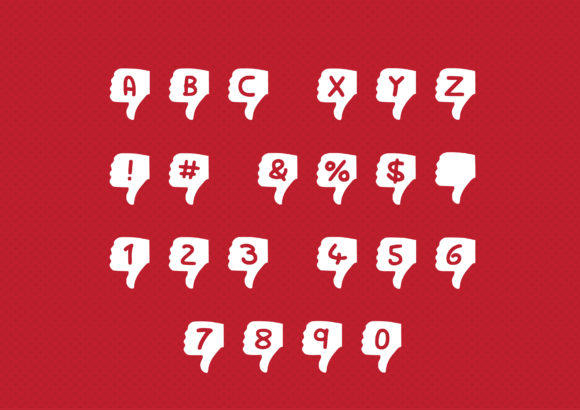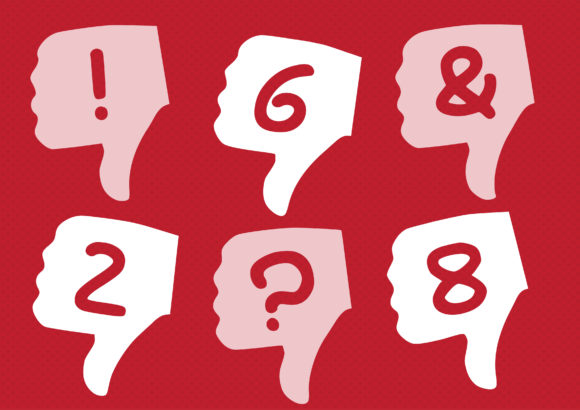
Introduction to Play Thumb Down Font
As a designer, you’ve probably had those moments where you’re searching for the perfect font to elevate your creative project. Maybe it’s a title for a new blog post, a cover for an upcoming album, or even just a simple banner to announce a special event. Whatever the case, finding the right font can be a challenge, but it’s a crucial step in making your design stand out.
That’s where the Play Thumb Down Font comes in – a high-quality, versatile font that’s perfect for adding a touch of personality to your designs. With its expressive typography, this font is ideal for titles, headlines, and other bold creative ideas. Whether you’re a seasoned designer or just starting out, the Play Thumb Down Font is a valuable addition to your design resource library.
Key Features of Play Thumb Down Font
- High-quality design resource with a transparent background
- Perfect for creative projects requiring a unique gesture icon
- Font size is adjustable, ideal for various design applications
- Resolution-independent, ensuring crisp and clear display at any size
- Part of a comprehensive design collection, suitable for multiple creative projects
Honest Review: Play Thumb Down Font
I recently stumbled upon the Play Thumb Down Font and was excited to give it a try. As a designer, I’m always on the lookout for high-quality design resources to elevate my creative projects.
Here are some things that work well with the Play Thumb Down Font:
- High-quality vector files that can be scaled up or down without losing clarity
- Transparency options for a seamless background experience
- Limited font styles and variations, which may not suit all design needs
- No support for bold or italic font weights
Overall, the Play Thumb Down Font is a solid addition to any design resource library. While it may not offer the most extensive options, its high quality and transparency make it a great choice for simple design projects.
✨ With some creativity and resourcefulness, designers can make the most of this font and create visually appealing designs.
Play Thumb Down Font
To get the most out of the Play Thumb Down Font, use it in combination with other design elements to create a unique look. Experiment with different font sizes, colors, and styles to find the perfect fit for your project.
The Play Thumb Down Font is perfect for creative projects such as social media graphics, blog posts, and presentations. Its high-quality design and transparent background make it easy to use in a variety of design applications.